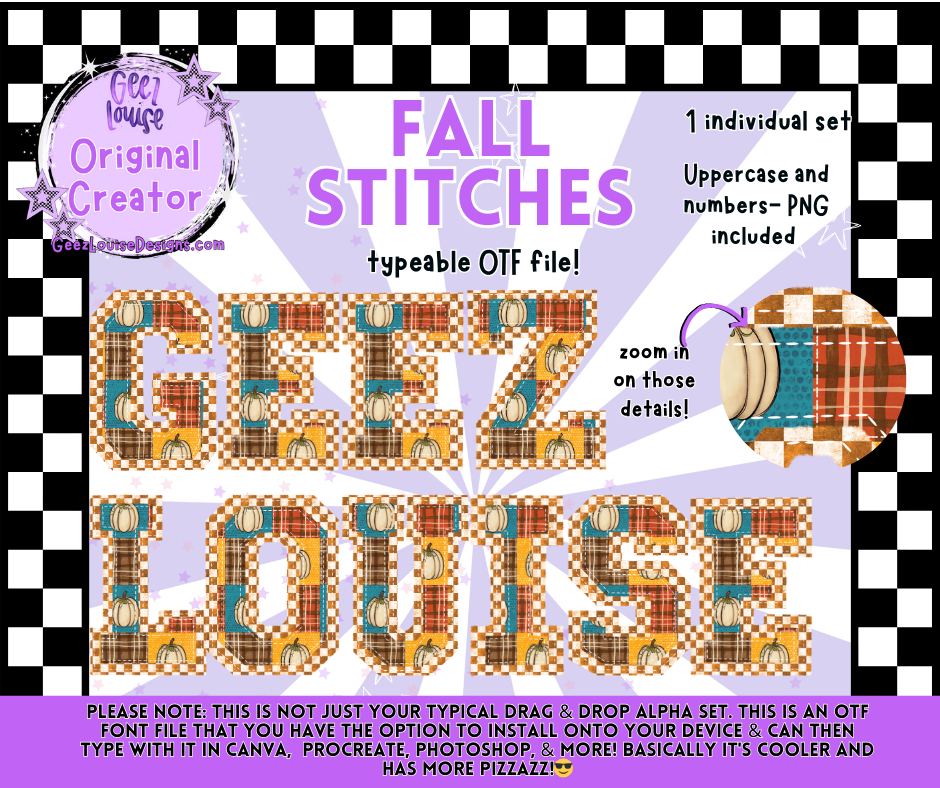
Fall Stitches – Typeable OTF Font with PNGs
Pumpkin spice meets stitched punk.
Say goodbye to basic. Fall Stitches is a typeable OTF font file drenched in patchwork charm and stitched attitude. With cozy textures, plaid chaos, and polka-dot rebellion, this font turns your captions, merch, and moodboards into autumnal lore.
• 1 individual set in stitched fall textures
• Zoom-worthy detail for that handmade-meets-haunted-craft-fair aesthetic
• Emo fall drops
• Grunge gratitude journals
• Spooky harvest rituals
• Cozy chaos captions
• Anything that screams “I made this in a haunted barn with glitter and heartbreak”
✨ Why it hits different: This isn’t just a font—it’s a stitched spell. Whether you’re designing tees, building lore, or crafting captions that feel like sweater weather with a side of emotional damage, Fall Stitches gives you the texture, tone, and typeability to make it weird and wonderful.